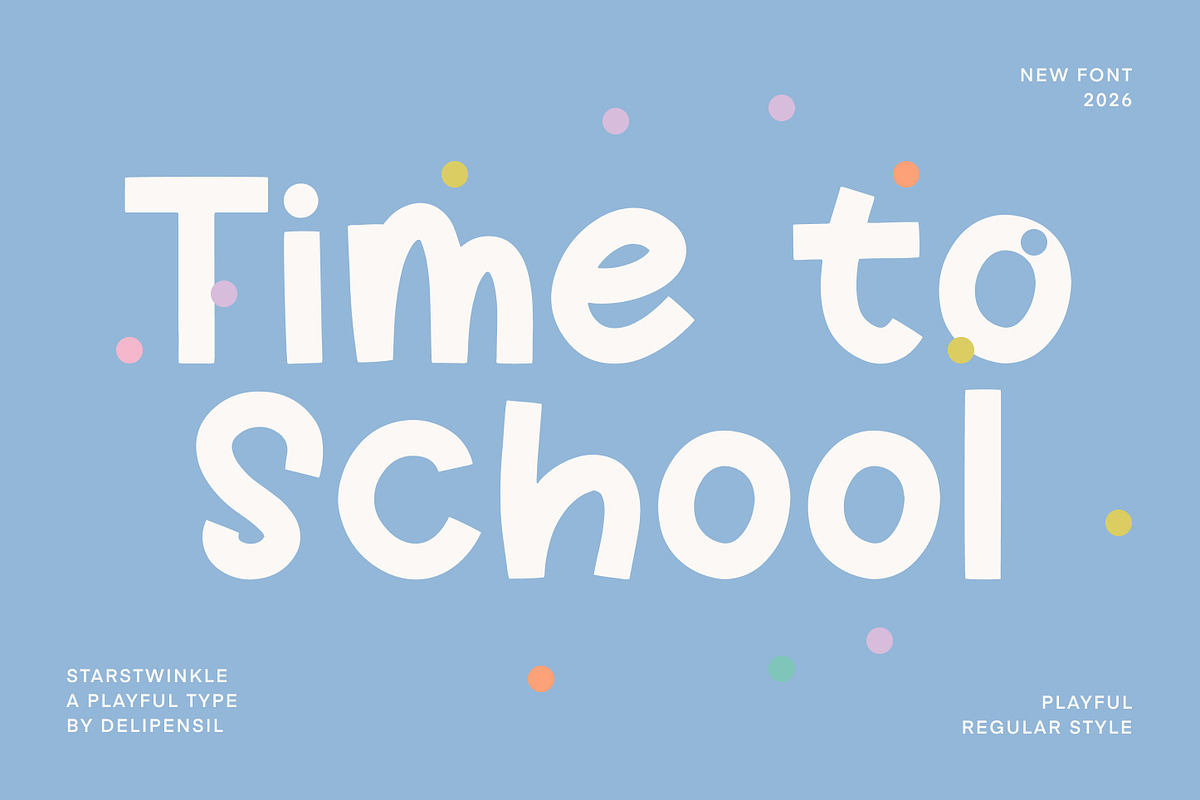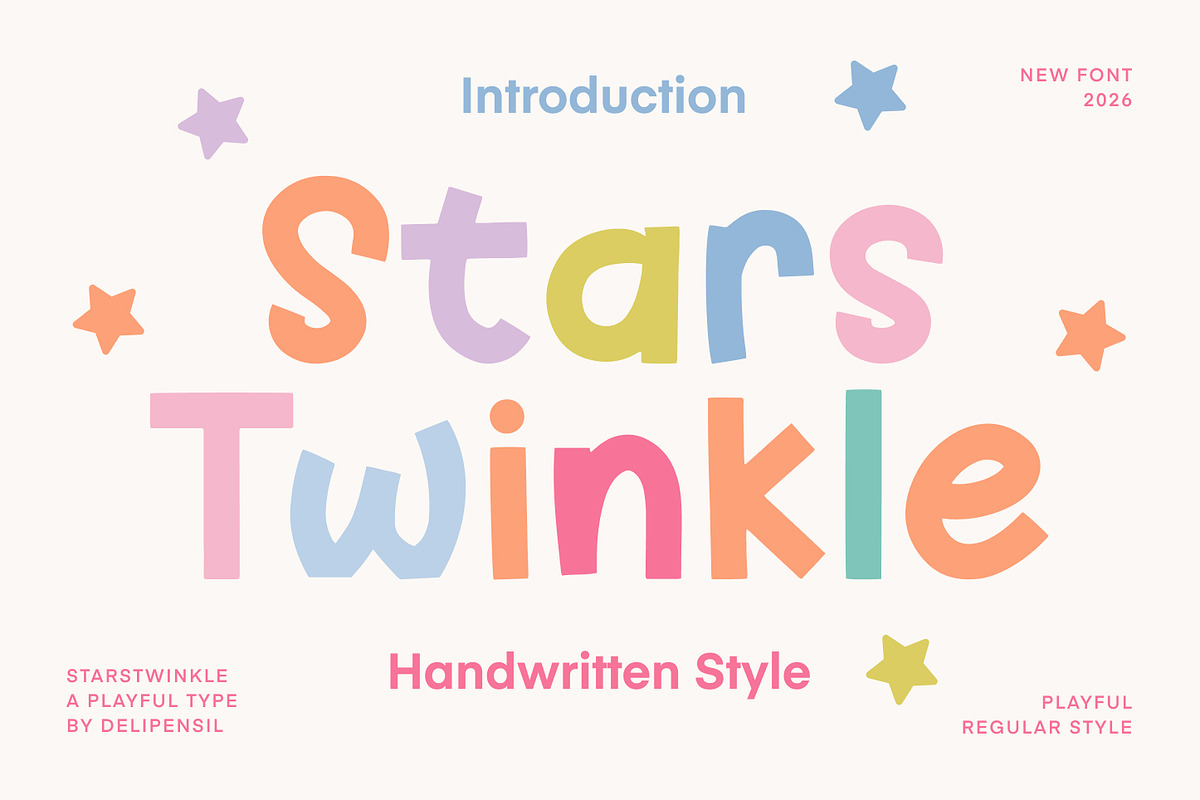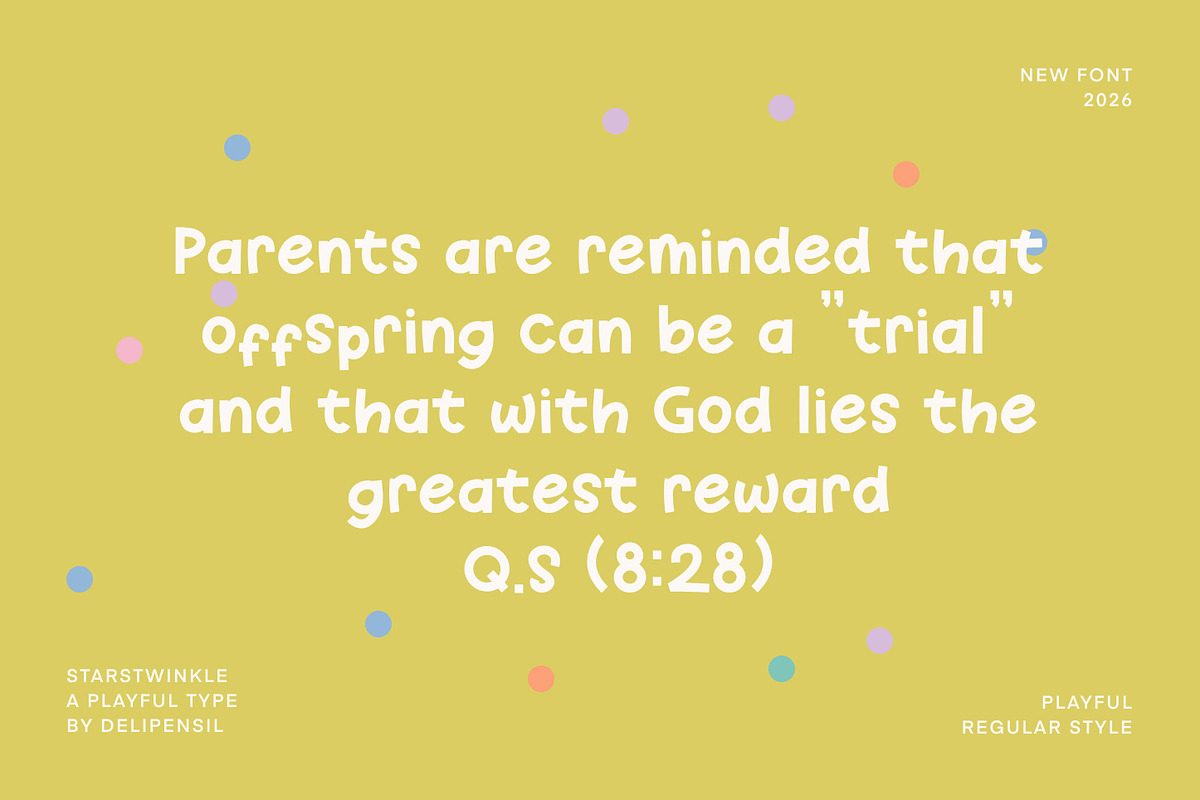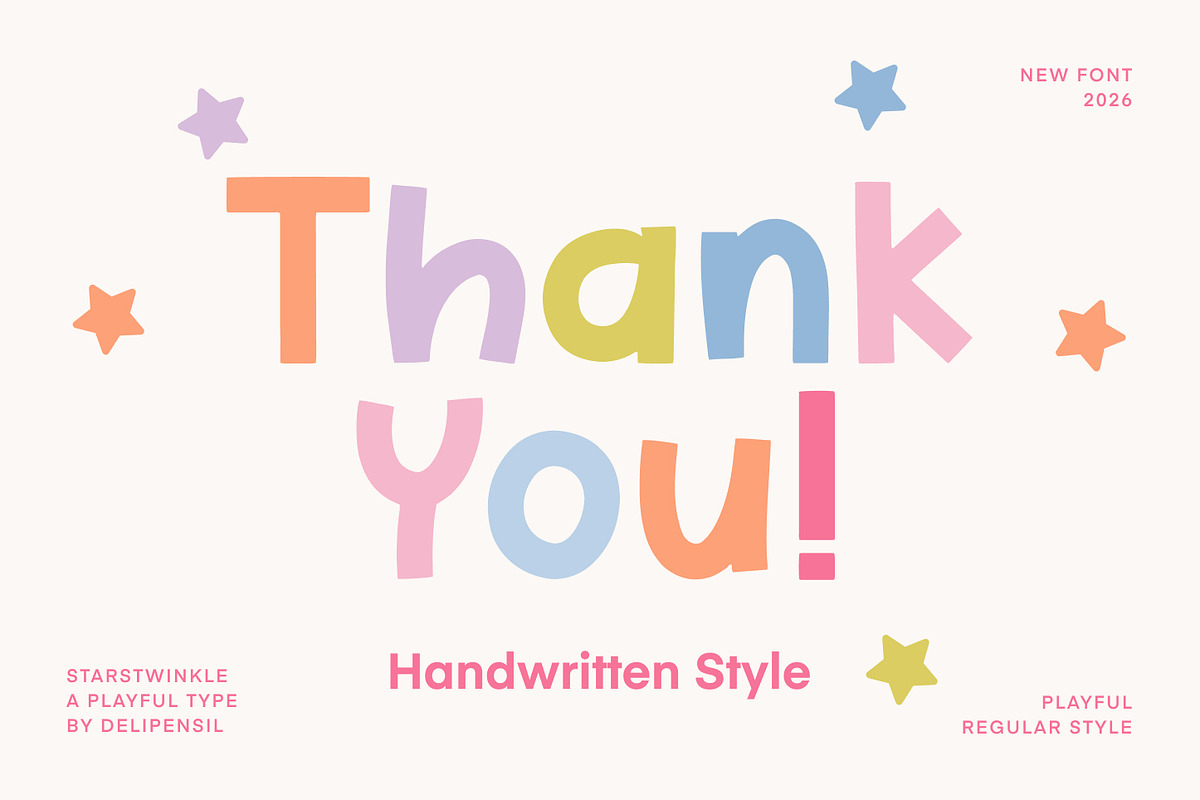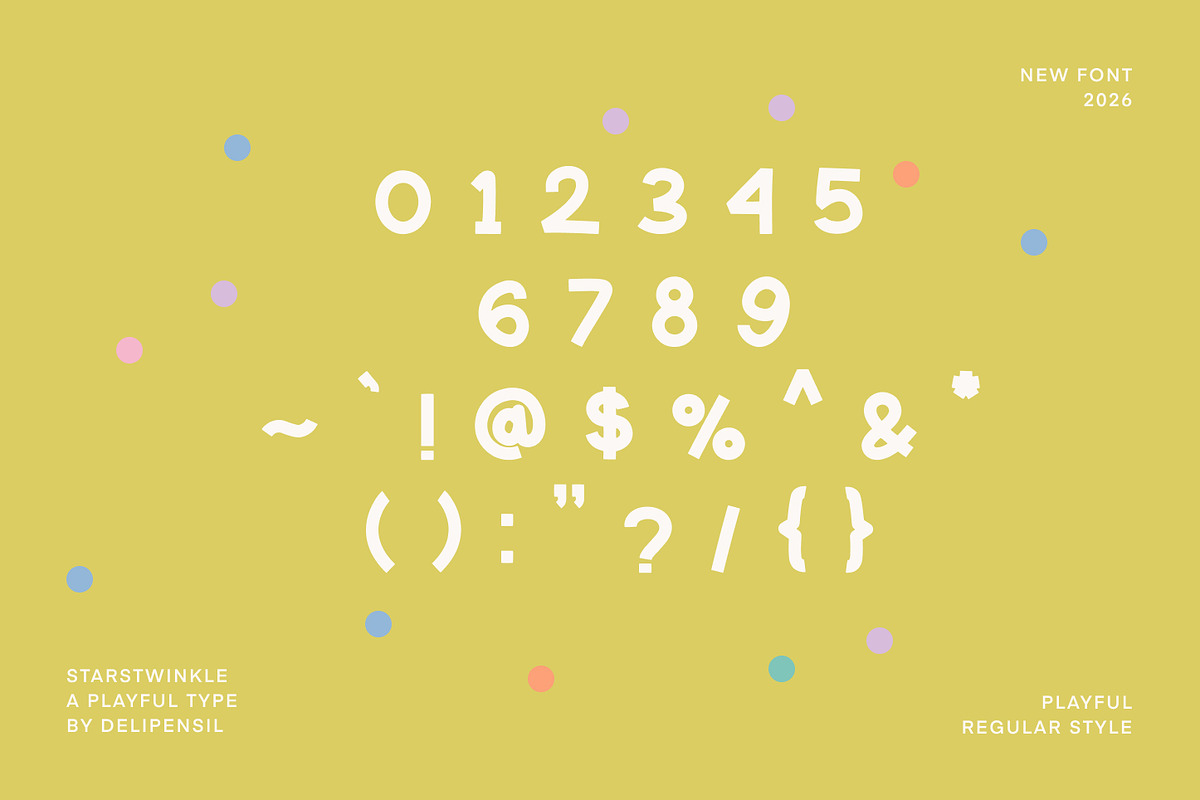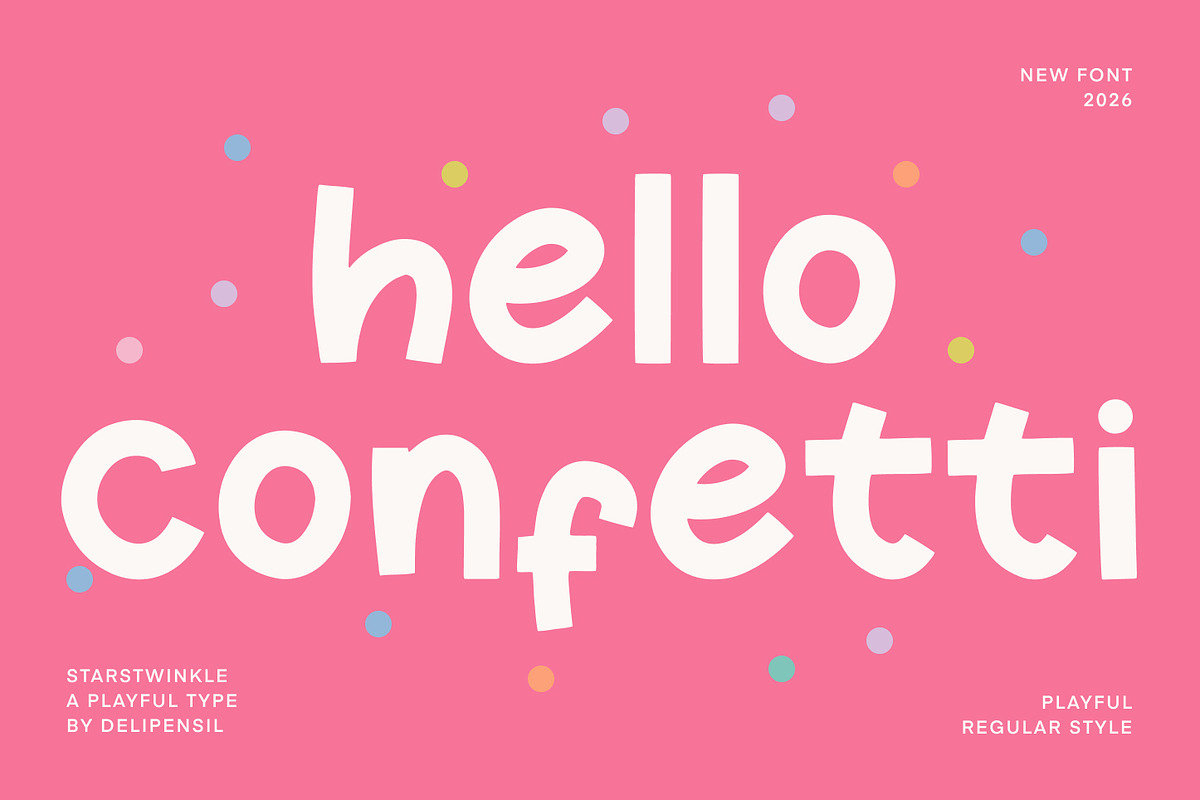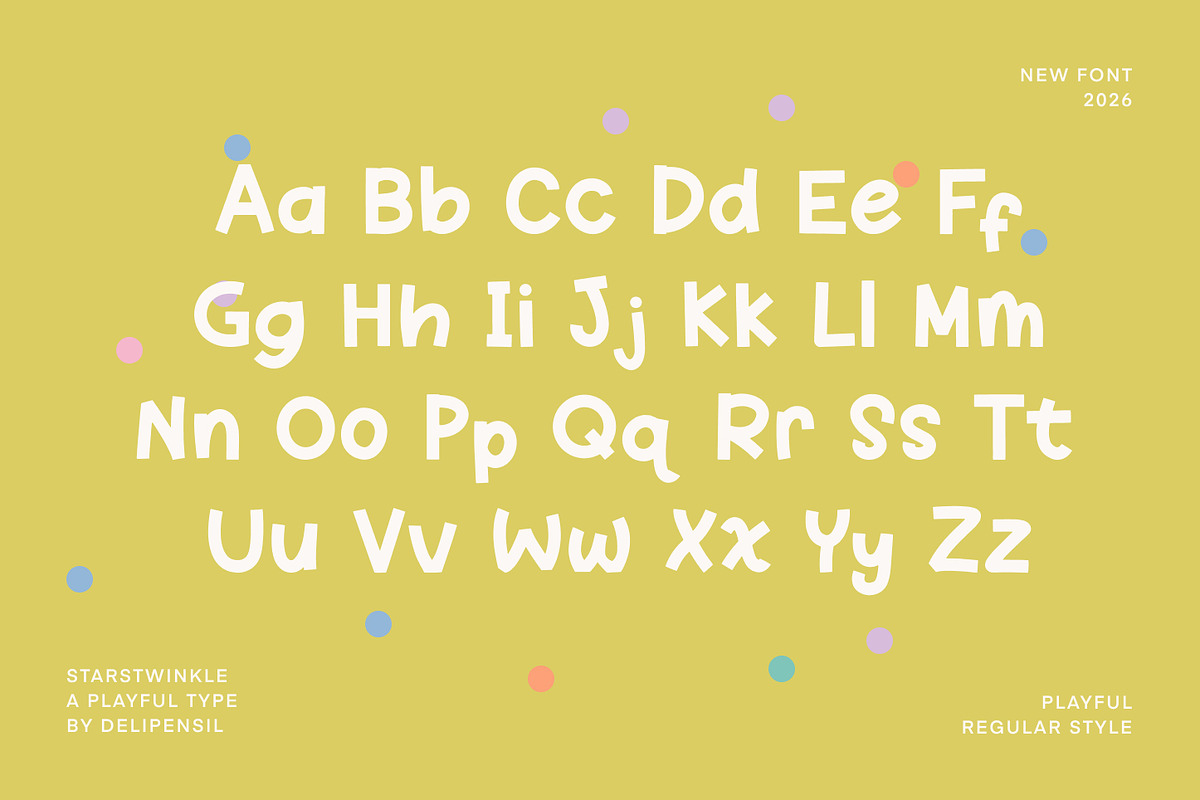
Stars Twinkle - A Handwritting Kids
Bismillah, Introduction Stars Twinkle is a cute and playful handwritten display font inspired by sparkling stars, childhood imagination, and joyful moments. Its charming letterforms bring a warm, friendly, and magical touch to any creative project.
Perfect for children’s books, classroom materials, birthday invitations, nursery decorations, toy packaging, branding, logos, social media posts, greeting cards, posters, stickers, T-shirts, Cricut projects, and many other fun designs.
Bring a little sparkle to your designs with Stars Twinkle — a delightful font that makes every project feel bright, cheerful, and full of imagination.